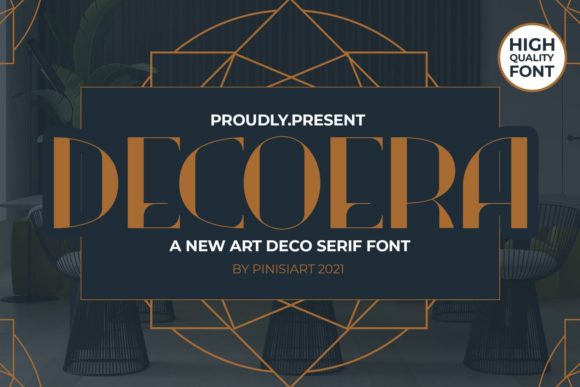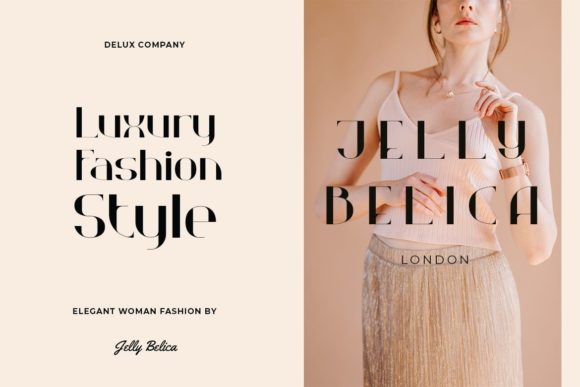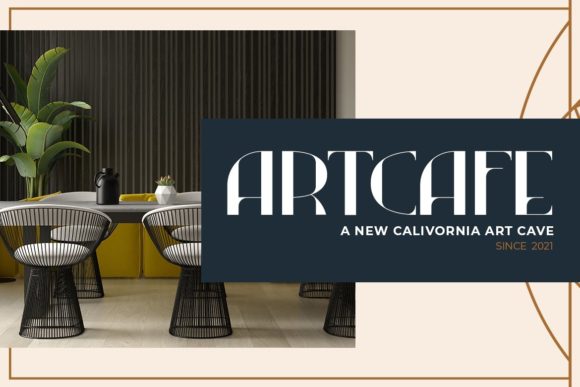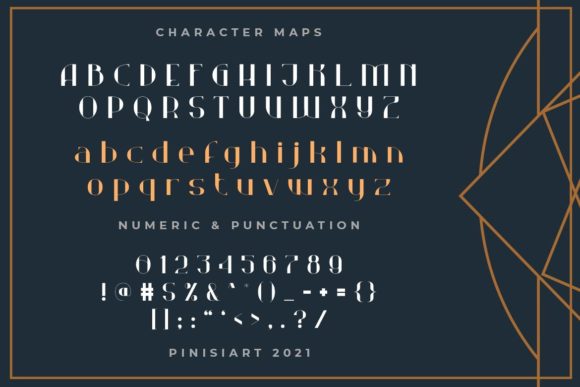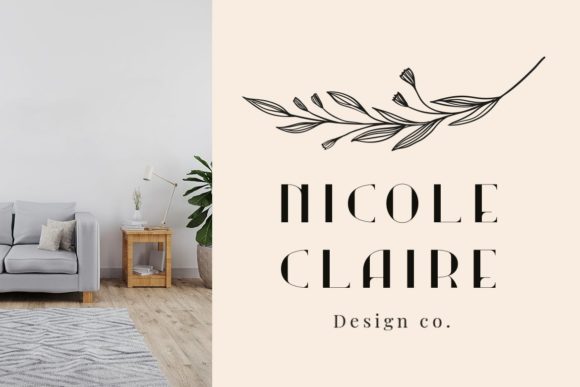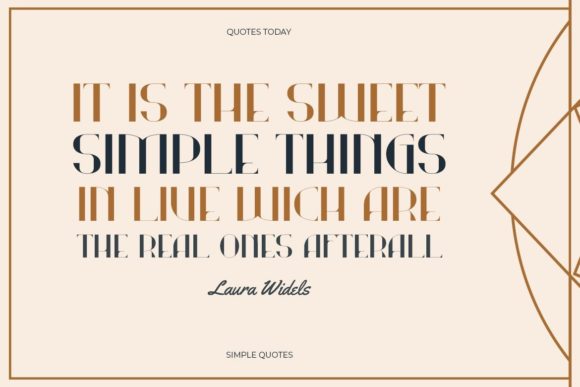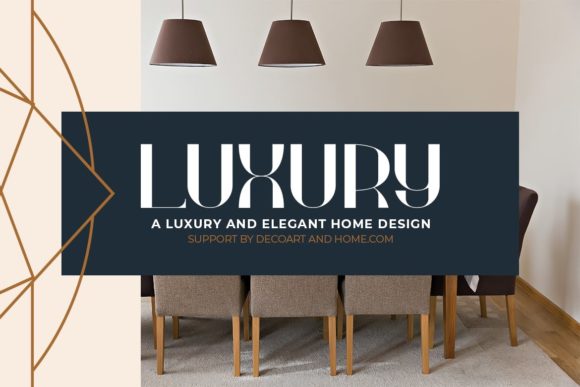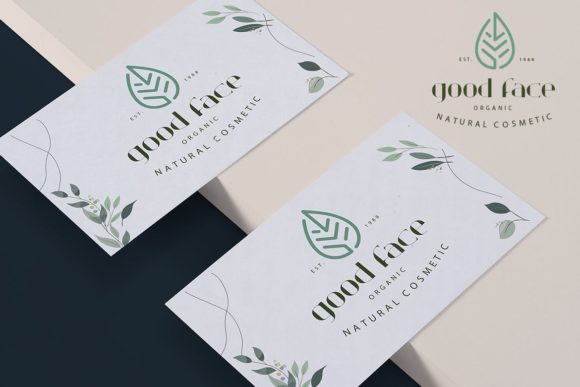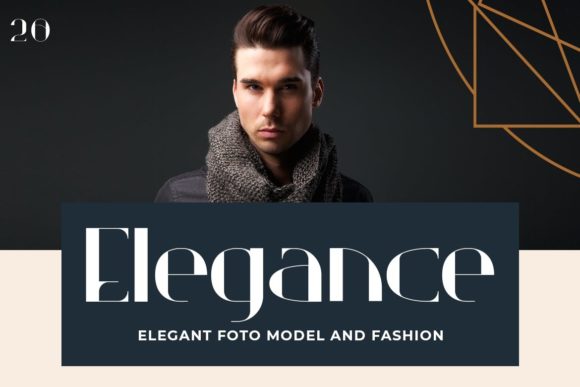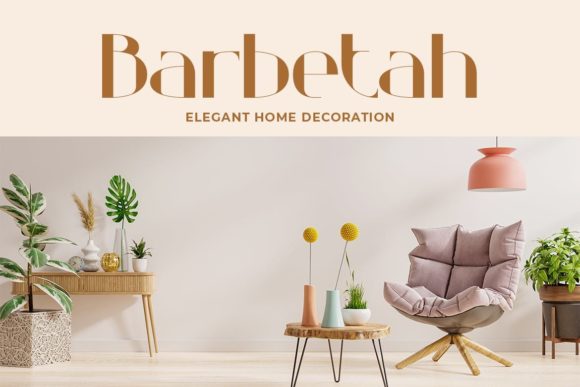
Decoera
Decoera: An Elegant Art Deco Slab Serif Font
Decoera is a distinctive slab serif font that embodies the classic elegance and high-class vintage feel of the Art Deco era. This stylish typeface is designed to evoke a sense of sophistication and timeless charm.
Key Features of Decoera
• Art Deco Style: Captures the essence of the iconic Art Deco design movement.
• Classic Elegance: Offers a refined and sophisticated look suitable for high-end applications.
• Vintage Feel: Evokes a sense of nostalgia and timeless charm.
• Slab Serif Structure: Incorporates the characteristic thick, rectangular serifs typical of slab serif fonts.
• Versatile Application: Suitable for a wide range of projects targeting upscale audiences.
Ideal Uses for Decoera
Decoera’s unique characteristics make it particularly well-suited for:
• High-end market audience targeting
• Poster designs
• Movie titles
• Classic restaurant or cafe menus
• Magazine layouts
• YouTube covers and thumbnails
• Social media page covers
When incorporating Decoera into your designs, consider these tips:
• Use for headlines or short blocks of text to showcase its elegant Art Deco style
• Experiment with different sizes to highlight the font’s vintage details
• Take advantage of its high-class feel for projects targeting upscale audiences
Decoera is an excellent choice for designers looking to add a touch of Art Deco elegance to their projects. Its classic style and high-class vintage feel make it stand out in the world of typography. Whether you’re working on logo designs for upscale brands, creating layouts for sophisticated magazines, or developing content that requires a timeless charm, Decoera offers the perfect blend of elegance and vintage appeal.
Furthermore, Decoera’s versatility allows it to shine in various contexts. From vintage-inspired designs with a luxurious twist to more contemporary layouts that need a touch of classic sophistication, this font can elevate your projects. Its Art Deco style works particularly well in designs that require a thoughtful and refined mood.
In conclusion, Decoera is a font that truly embodies its name, transporting viewers to the elegant DECOERA. Its ability to work well in both vintage-style projects and modern designs that require a classic touch showcases its flexibility. For those looking to add a dash of timeless elegance to their work, Decoera can even enhance themed creations with its unique, sophisticated Art Deco flair.